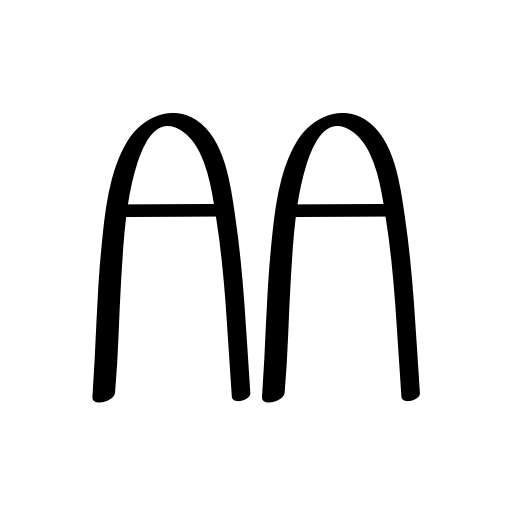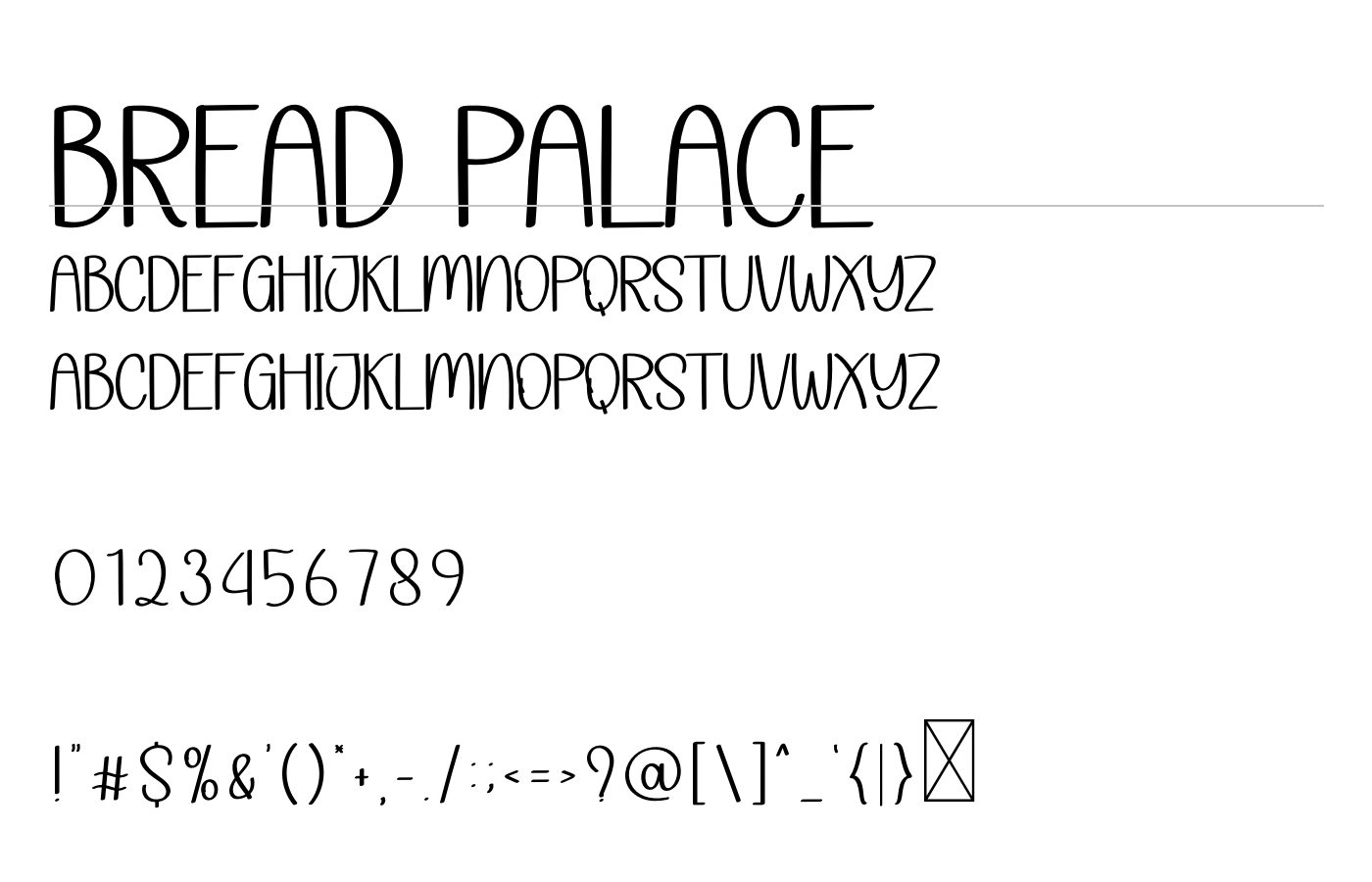
Bread Palace is a playful and friendly sans serif font with a tall, narrow structure and a hand-drawn feel that adds a touch of casual charm. Its light weight, irregular strokes, and slightly whimsical letterforms make it ideal for creative projects, branding, and headlines where a warm, approachable impression is desired. This font works particularly well for artisanal, lifestyle, and children's products, offering personality and readability in a unique, informal style.
Bread Palace Font